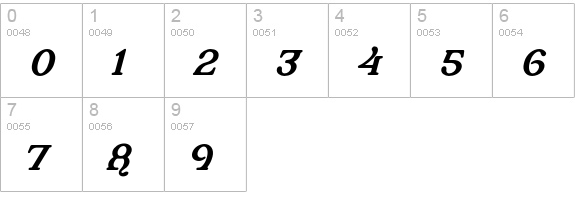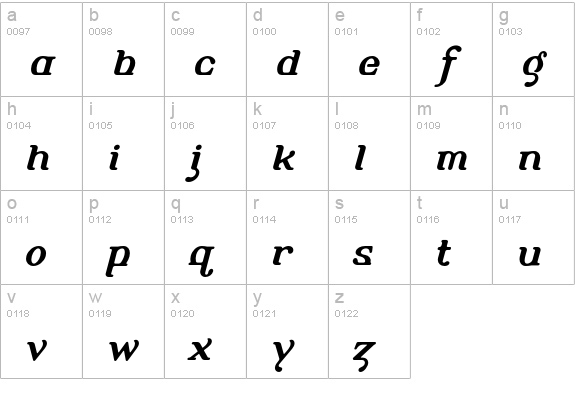
The AlembicBeta-BoldItalicTwo font exudes a bold and dynamic presence, perfect for making a statement in your design projects. Its sleek and modern italic style adds a touch of sophistication, making it ideal for headlines, logos, and branding materials. This font strikes the perfect balance between elegance and impact, making it a versatile choice for a variety of creative endeavors. What's even better is that AlembicBeta-BoldItalicTwo is available for free download at FontsMarket.com. Now you can elevate your designs with this striking font without any cost. Don't miss out on the opportunity to enhance your projects with the unique flair of AlembicBeta-BoldItalicTwo. Download it today and let your creativity shine!